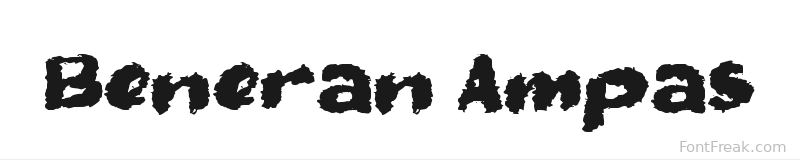
Beneran Ampas
Beneran Ampas is a striking display font designed by Wahyu Eka Prasetya, showcasing a unique and artistic flair perfect for various creative projects. This font falls under the decorative category, characterized by its bold, irregular strokes that convey a sense of spontaneity and energy. The strokes have a variable weight, lending a dynamic quality to the text, while the uneven edges provide a playful, hand-crafted feel. The spacing is deliberately loose, allowing each letter to breathe and stand out, making it an excellent choice for eye-catching designs.
The visual characteristics of Beneran Ampas make it particularly suitable for applications that require a hint of creativity and flair. This font works wonderfully for wedding invitations, where its distinctive style can add a personal touch. It is also a great fit for movie posters, especially in genres that embrace bold graphics and unconventional themes. Restaurant menus can benefit from Beneran Ampas by using it for headings or special dish descriptions, creating an inviting and memorable dining experience. Additionally, it can enhance branding for small businesses, especially those in the arts, crafts, or food sectors, by giving their marketing materials a unique identity.
The target audience for Beneran Ampas includes graphic designers, small business owners, and content creators looking for a font that breaks traditional molds. This font is particularly appealing to those who wish to convey creativity and individuality in their work.
In conclusion, Beneran Ampas stands out due to its playful and unconventional design, making it an excellent choice for projects that seek to capture attention and evoke emotion. For those interested, the Beneran Ampas font free download offers an opportunity to incorporate this distinctive typeface into your creative endeavors.